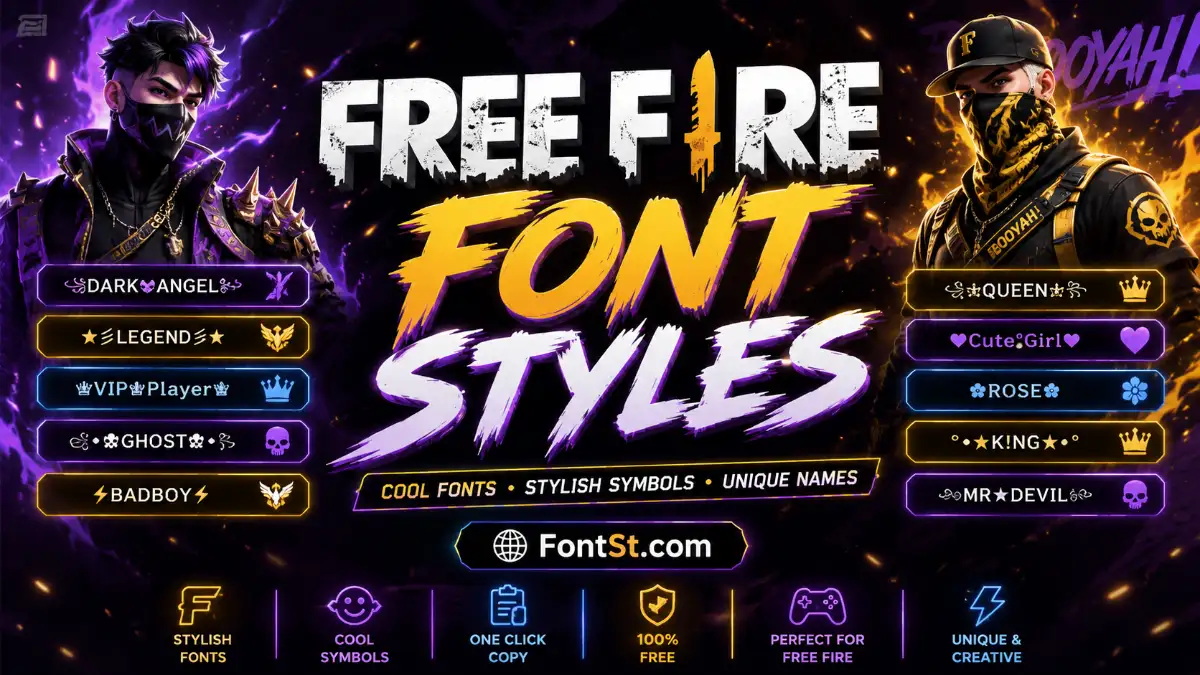
Free Fire Font Style Generator – Stylish Names & Bio
Want to make your Free Fire name look cooler, sharper, or more unique? This Free Fire Font Style Generator helps you create stylish names and bio text you can copy and paste for your profile, guild identity, and in-game style.
A good Free Fire font style is not just about looking fancy. It should also be easy to read, fit your personality, and make your name stand out in a lobby, profile, or friend list.
Some players like clean and sharp text. Others prefer decorative symbols, soft aesthetic styles, or names that feel bold and aggressive. The best choice depends on the vibe you want for your account.
Popular style directions include:
Bold and strong names for competitive players
Cute and soft fonts for aesthetic profiles
Symbol-based names with stars, hearts, or arrows
Dark or edgy styles for serious or mysterious identities
Clean minimal fonts that still look different from plain text
For Free Fire, shorter names usually look better than very long ones. A short stylish name is easier to remember and often looks cleaner in-game.
Players often want different vibes depending on the kind of name they are building. Some want a strong and confident name. Others want something cute, elegant, or aesthetic.
That is why a Free Fire font style generator for boy and girl names is useful. You can test the same word in different styles and choose the one that matches your profile.
For boys
Boy-style Free Fire names often lean toward:
Strong-looking fonts
Sharp symbols
Dark or bold styles
Minimal but aggressive text
Clean name designs with a competitive feel
Examples of common moods:
fearless
pro
dark
king
elite
broken
shadow
For girls
Girl-style Free Fire names often work well with:
Cute or soft fonts
Elegant lettering
Aesthetic symbols
Clean but pretty styles
Light decorative text
Examples of common moods:
angel
queen
moon
rose
sweet
dreamy
icy
Of course, there is no fixed rule. Many players mix styles freely. A girl can use a bold and dark name, and a boy can use a clean aesthetic style. The best result is simply the one that matches your personality.
A few tips make the result better:
Keep your name short
Avoid overloading the name with too many symbols
Choose a style that is still readable
Test 2 to 4 versions before deciding
Use extra decoration more in bio than in the main nickname
For many players, the cleanest stylish name looks better than the most overloaded one.
Stylish Font for Free Fire
A stylish font for Free Fire should feel intentional. It should not look random or messy. The best names usually follow one main style direction.
Free Fire Font Style
Here are some good style goals:
Cool and pro Great for ranked players and competitive accounts
Dark and mysterious Good for edgy names, guild vibes, and shadow-themed identities
Cute and aesthetic Perfect for softer bios and pretty display names
Royal and premium Strong for elite-style names with a polished look
Minimal and clean Best for players who want something simple but still different
You can also use stylish fonts in more than one place:
Main nickname
Bio section
Signature text
Clan or guild-related identity
Social text connected to your gaming profile
The smartest approach is to keep your main name clean and use more decoration in the bio.
A font that looks like flames is popular because Free Fire names often aim for a fierce, intense, and battle-ready look.
Flame-style names usually feel:
hot
fast
aggressive
dangerous
high-energy
powerful
You do not always need literal fire symbols to create this effect. A flame-like font style often comes from the full design of the name:
bold text
sharp edges
aggressive symbols
red or fiery mood words
strong visual rhythm
Some ideas that create a flame-style feeling:
Blaze
Inferno
FireX
Burn
Crimson
Heat
Rage
Pyro
You can combine those ideas with stylish text and a few symbols to make the name feel more intense. Just keep it balanced. Too many symbols can ruin the effect.
A flame-style name usually works best when the word itself already feels strong, then the font style adds energy on top.
What font looks like flames for Free Fire? There is no single official flame font, but bold, sharp, aggressive styles with fiery words usually create that effect well.
Should I use lots of symbols in a Free Fire name? Usually no. A few symbols can help, but too many can make the name look messy and harder to read.